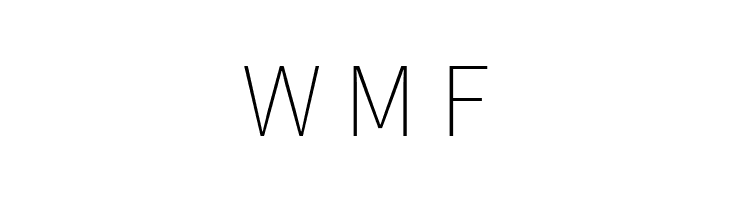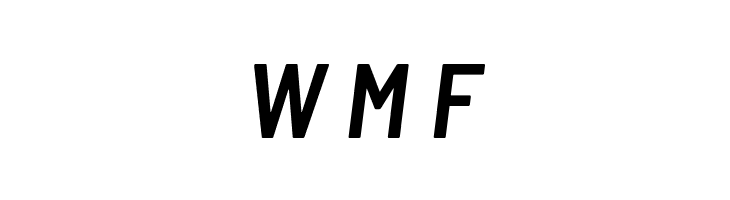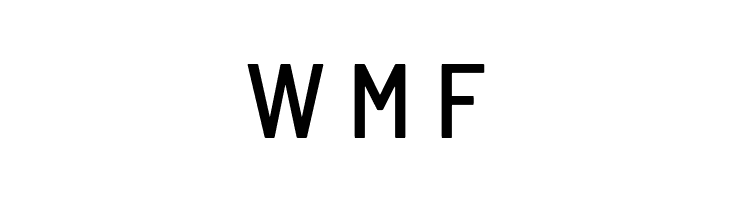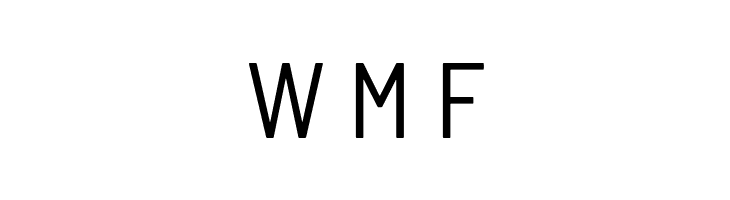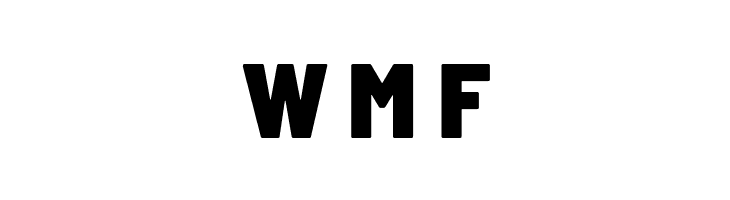
A clean, modern typeface with consistent stroke width and excellent readability.
A modern, semi-condensed bold italic font with clean lines and a dynamic style.
A bold, semi-condensed font with a modern and impactful style.
A sleek, semi-condensed, thin italic font with a modern and dynamic style.
A sleek, modern, semi-condensed extra light italic font with clean lines and balanced spacing.
A modern, semi-condensed, semi-bold italic typeface with medium contrast and normal spacing.
A modern, semi-condensed typeface with clean lines and uniform stroke width.
A clean, modern, and semi-condensed typeface with a light weight and geometric design.
A modern, semi-condensed sans-serif font with a clean and professional look.
A bold, semi-condensed font with a modern and impactful style.